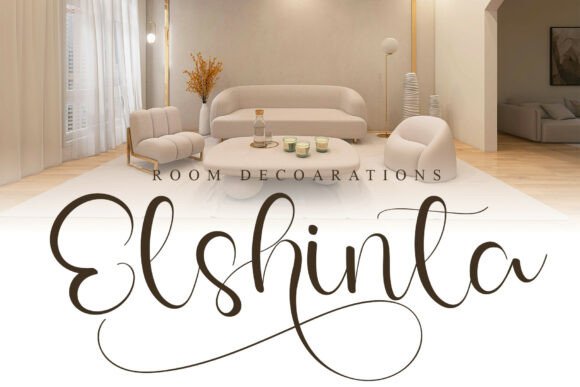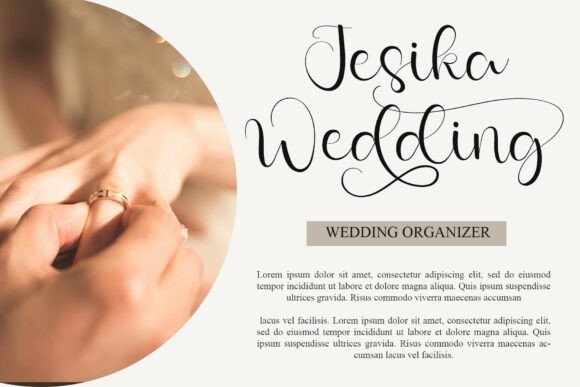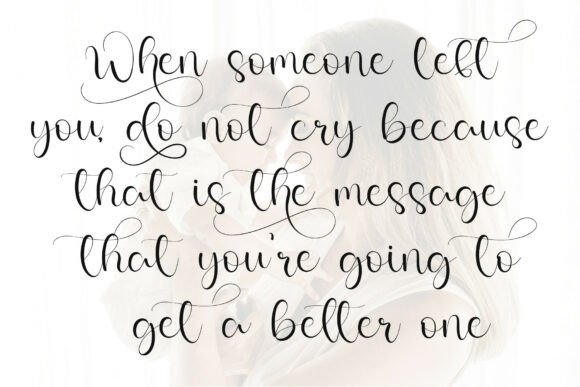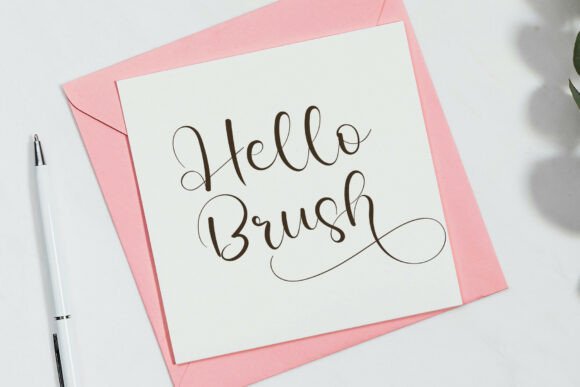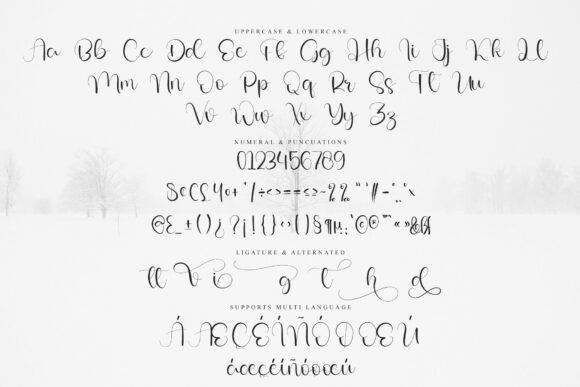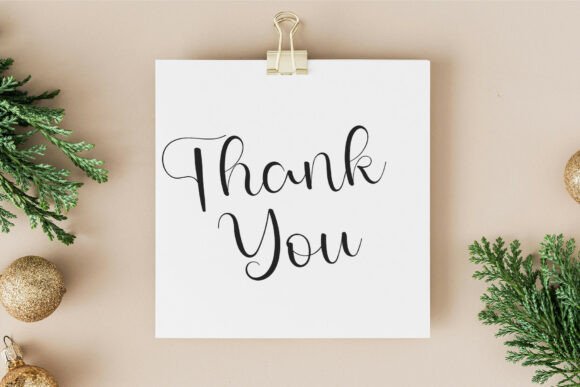
Introducing Giovani Writing Font: The Sweet and Elegant Cursive Handwritten Font
Are you looking for a font that can add a touch of elegance and romance to your designs? Look no further than Giovani Writing Font! This beautiful, cursive handwritten font is perfect for designers and crafters who want to create stunning visual content that exudes joy and sophistication.
What Makes Giovani Writing Font Special?
Giovani Writing Font is a sweet and cursive handwritten font that is designed to make your designs look gorgeous. Its gentle and flowing lines make it perfect for a variety of design ideas, from branding and logos to wedding materials and greeting cards. This font is versatile and can be used in various contexts, making it a great addition to your font library.
Giovani Writing Font is perfect for designers and crafters who work on a range of projects, including:
- Branding: Use Giovani Writing Font to create elegant and sophisticated brand identities that will make your business stand out.
- Logos: Create stunning logos that exude joy and romance with this beautiful font.
- Wedding Materials: Make your wedding designs, such as invitations, programs, and place cards, look elegant and sophisticated with Giovani Writing Font.
- Greeting Cards: Add a touch of elegance and thoughtfulness to your greeting cards with this beautiful font.
- Fashion: Use Giovani Writing Font to create stunning lookbooks, fashion magazines, and marketing materials that exude style and sophistication.
Why Choose Giovani Writing Font?
There are many reasons why you should choose Giovani Writing Font for your design projects. Here are a few:
- Elegant and Sophisticated: Giovani Writing Font is a beautiful, cursive handwritten font that exudes elegance and sophistication.
- Versatile: This font can be used in a variety of contexts, making it a great addition to your font library.
- Easy to Read: Giovani Writing Font is clear and easy to read, making it perfect for body text and headings.
- Unique: This font has a unique and distinctive style that will make your designs stand out from the crowd.
Tips for Using Giovani Writing Font
Here are a few tips for using Giovani Writing Font in your design projects:
- Use it as a Headline Font: Giovani Writing Font is perfect for headlines and titles. Use it to create stunning headings that exude elegance and sophistication.
- Pair it with a Sans-Serif Font: Pair Giovani Writing Font with a sans-serif font, such as Arial or Helvetica, to create a beautiful contrast.
- Experiment with Colors: Giovani Writing Font looks great in a variety of colors. Experiment with different colors to find the one that works best for your design.
Giovani Writing Font is a beautiful, cursive handwritten font that is perfect for designers and crafters who want to create stunning visual content. Its elegant and sophisticated style makes it perfect for a variety of design projects, from branding and logos to wedding materials and greeting cards. With its versatility, ease of use, and unique style, Giovani Writing Font is a great addition to any font library.